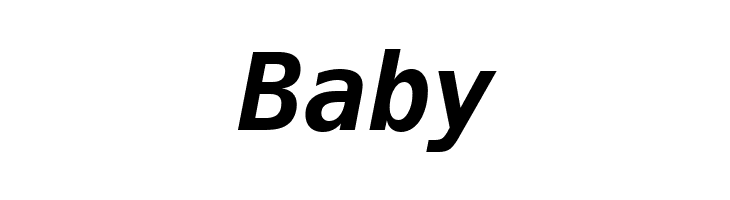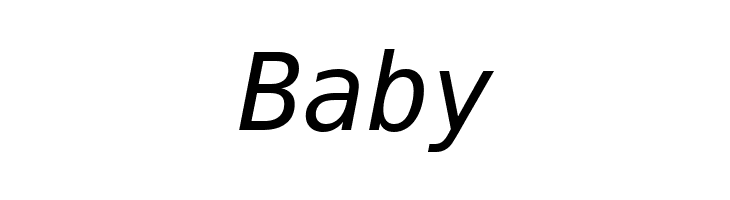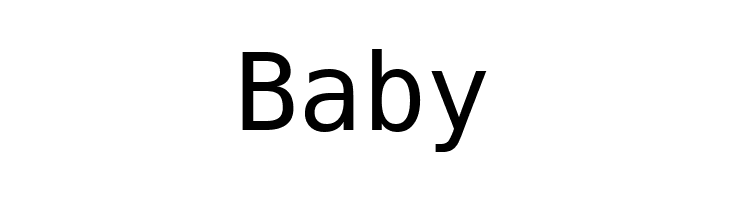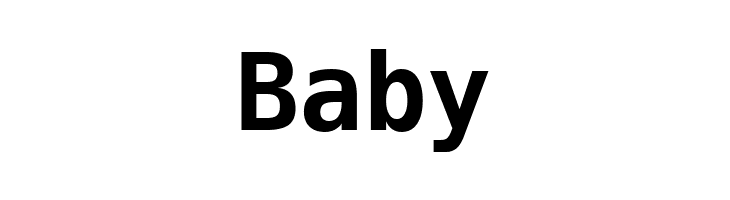
• Meslo LG L DZ Italic
A modern, monospaced italic font with medium contrast and normal spacing.
• Meslo LG L DZ Regular
A clean, monospaced font ideal for coding and technical documentation.
• Meslo LG M DZ Bold
A bold, monospaced font ideal for coding and technical documents.
• Meslo LG M DZ Bold Italic
A bold, italic, monospaced font with a modern and dynamic style.
• Meslo LG M DZ Italic
A modern, monospaced italic font with medium contrast and balanced spacing.
• Meslo LG M DZ Regular
A clean, modern monospaced font ideal for coding and technical use.
• Meslo LG S DZ Bold
A bold, monospaced font with a clean and modern design, perfect for coding.
• Meslo LG S DZ Bold Italic
A bold, italic, monospaced font with a modern and clean design.
• Meslo LG S DZ Italic
A clean, monospaced italic font with medium contrast and modern appeal.
• Meslo LG S DZ Regular
A clean, modern monospaced font ideal for coding and technical documentation.